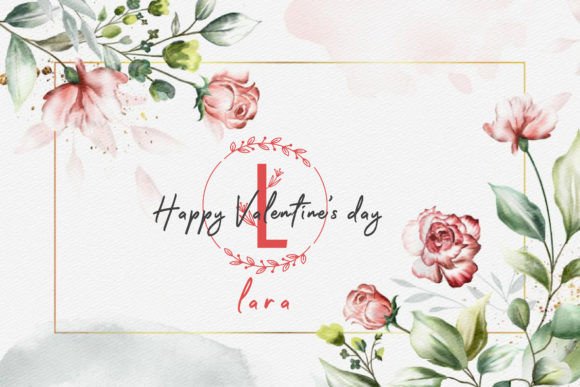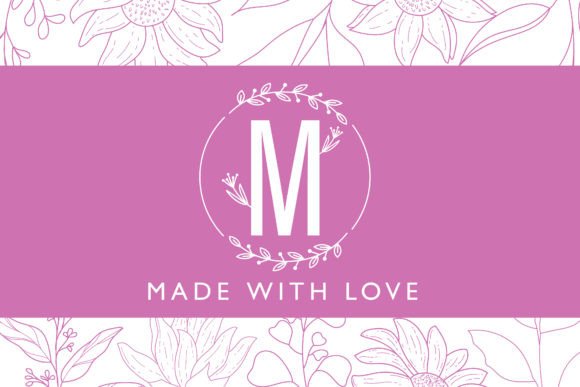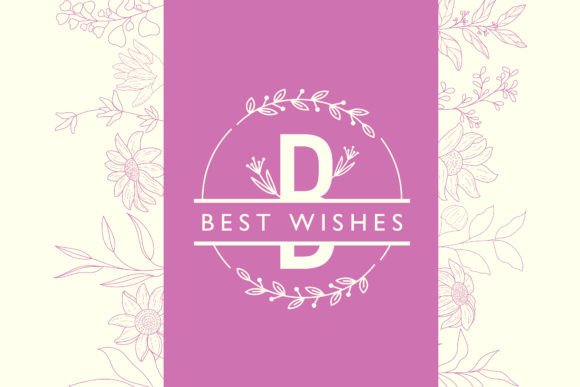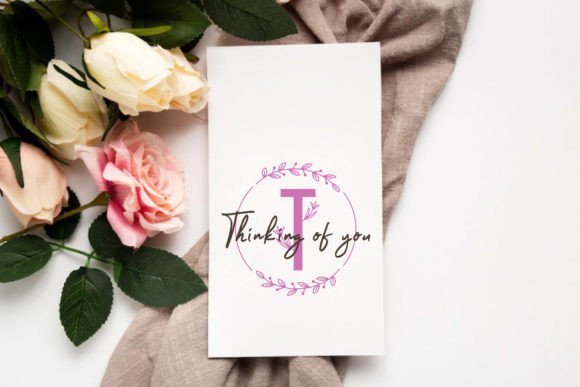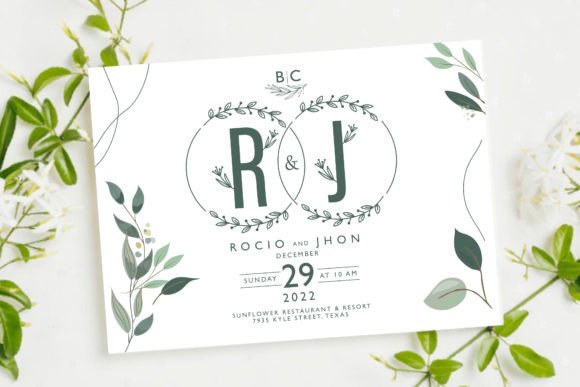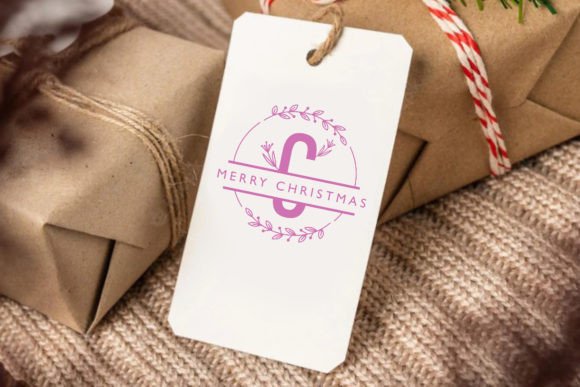
Introducing Florist Monogram Font: The Ultimate Decorative Font for Creative Projects
Are you a designer, crafter, or DIY enthusiast looking for a unique and eye-catching font to elevate your creative projects? Look no further than the Florist Monogram Font, a stunning decorative font that is sure to make your work stand out. In this article, we’ll explore the features and benefits of this amazing font, and show you how it can be used to add a touch of youthfulness and courage to your designs.
What is Florist Monogram Font?
Florist Monogram Font is a decorative font that is designed to make a statement. With its modern and minimalist approach, this font is perfect for anyone looking to add a touch of elegance and sophistication to their designs. The font features a unique monogram style that is both stylish and versatile, making it suitable for a wide range of creative projects.
Key Features of Florist Monogram Font
- Decorative and Eye-Catching: The Florist Monogram Font is designed to grab attention and make a statement. Its unique and stylish design ensures that your text will stand out from the crowd.
- Modern and Minimal: The font features a clean and minimalist design that is perfect for modern designs. Its simplicity makes it easy to read and versatile enough to use in a variety of contexts.
- Monogram Style: The font features a beautiful monogram style that adds a touch of elegance and sophistication to your designs.
- Youthful and Courageous: The Florist Monogram Font is perfect for designs that require a youthful and courageous vibe. Its modern and stylish design ensures that your text will look fresh and exciting.
Use Cases for Florist Monogram Font
The Florist Monogram Font is a versatile font that can be used in a variety of creative projects. Here are some use cases to get you started:
- Cards and Invitations: Add a touch of elegance and sophistication to your cards and invitations with the Florist Monogram Font.
- T-Shirts and Apparel: Create eye-catching and stylish t-shirts and apparel with this amazing font.
- Posters and Flyers: Make your posters and flyers stand out with the Florist Monogram Font’s unique and decorative design.
- Movie Titles and Credits: Add a touch of glamour and sophistication to your movie titles and credits with this stunning font.
- Social Media Posts: Create eye-catching and engaging social media posts with the Florist Monogram Font’s modern and stylish design.
Why Choose Florist Monogram Font?
With so many fonts available, why choose the Florist Monogram Font? Here are just a few reasons why this font stands out from the rest:
- Unique and Exclusive: The Florist Monogram Font is a unique and exclusive font that will make your designs stand out from the crowd.
- High-Quality Design: The font features a high-quality design that is both stylish and legible.
- Versatile: The font is versatile enough to use in a wide range of creative projects, from cards and invitations to posters and social media posts.
In conclusion, the Florist Monogram Font is a stunning decorative font that is perfect for designers, crafters, and DIY enthusiasts looking to add a touch of elegance and sophistication to their creative projects. With its modern and minimalist design, unique monogram style, and versatility, this font is sure to make your designs stand out from the crowd. Whether you’re creating cards, t-shirts, posters, or social media posts, the Florist Monogram Font is the perfect choice.